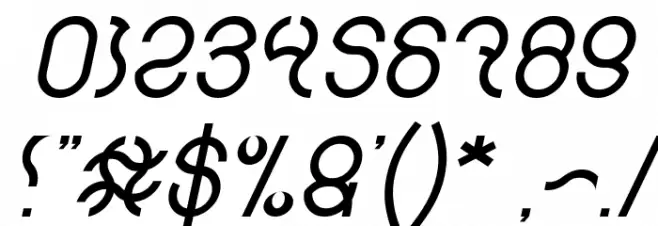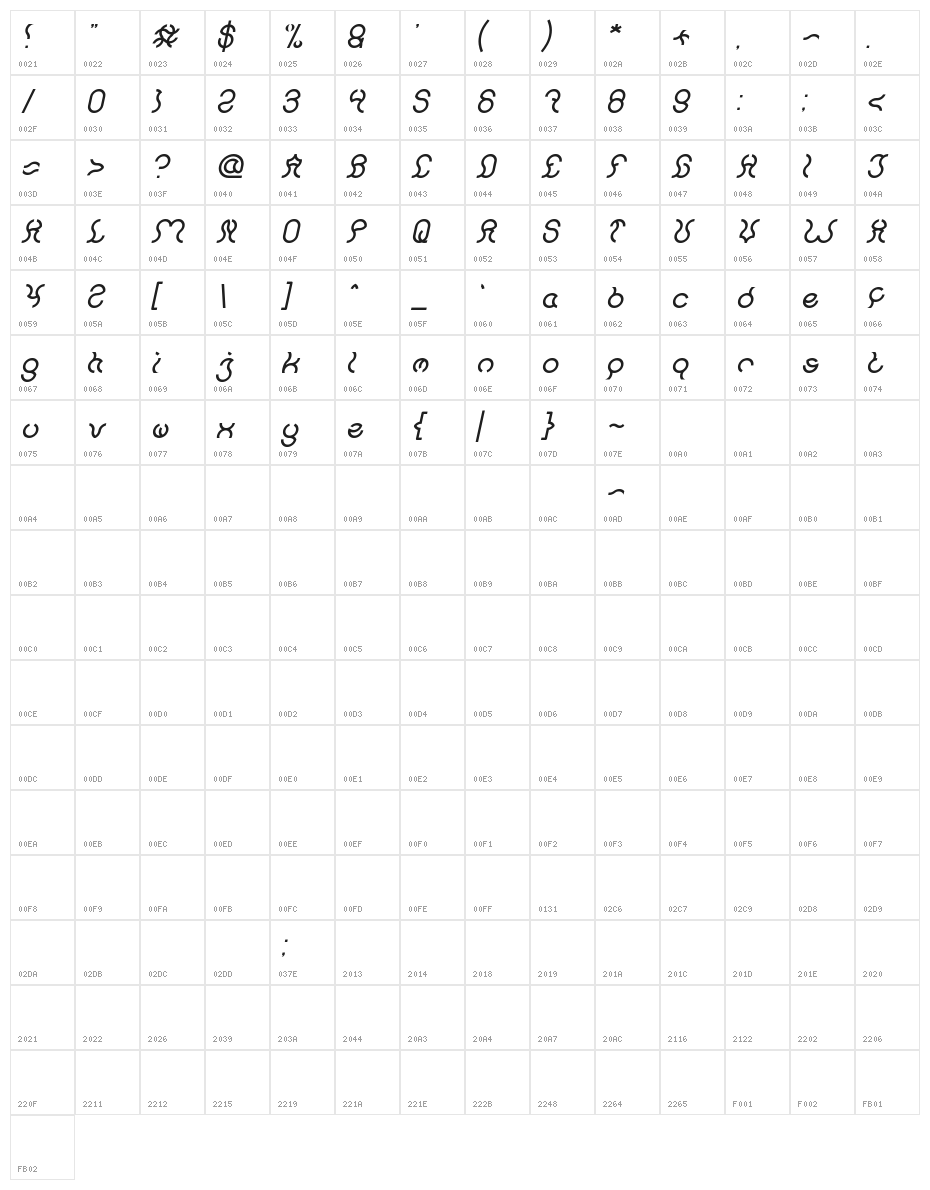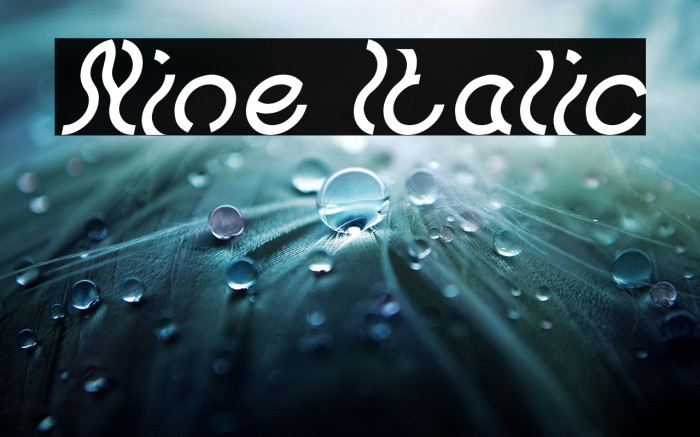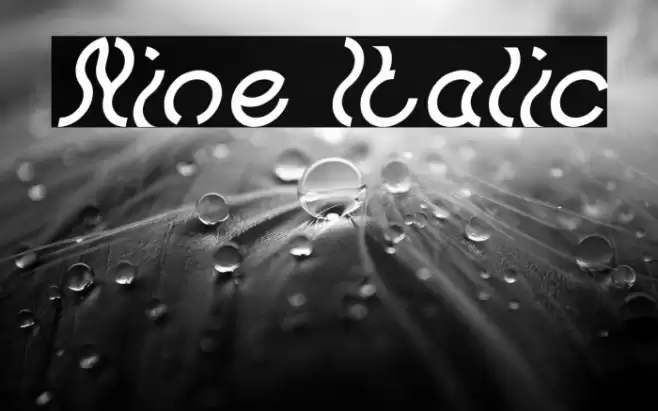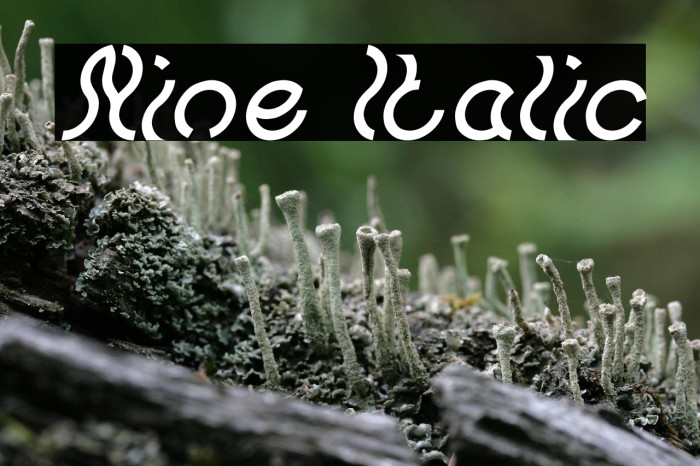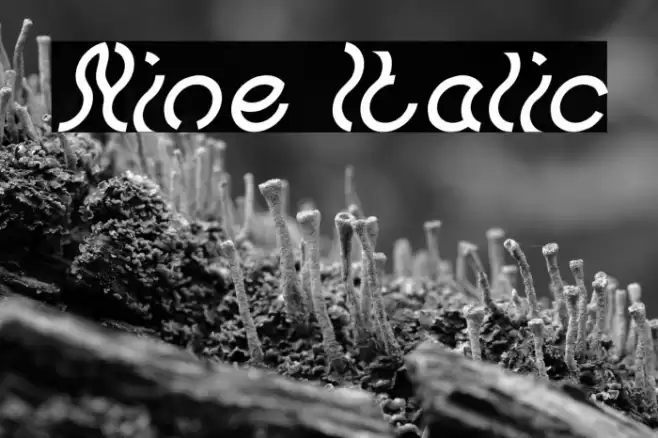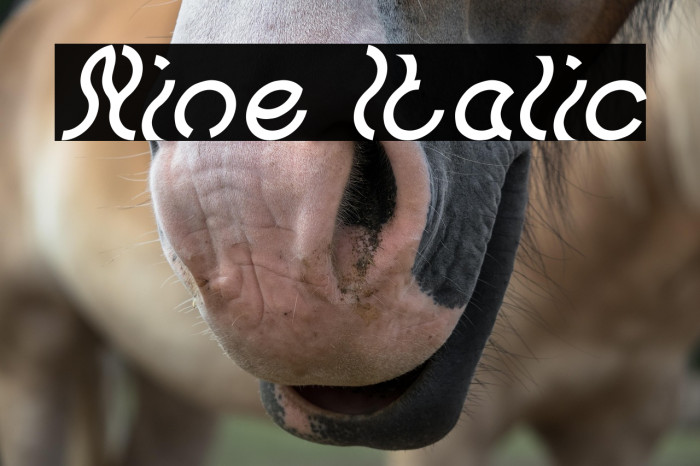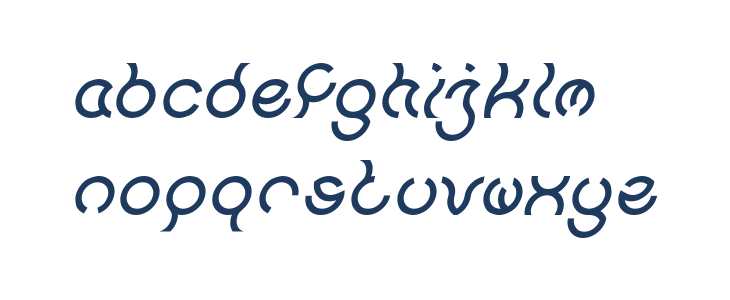
Nine Italic Font
Nine Italic Description
This font features a unique and artistic design with a strong emphasis on curves and fluidity. Each character is crafted with a distinct italic slant, giving it a dynamic and flowing appearance. The strokes are bold and consistent, creating a sense of movement and energy. The uppercase letters are particularly striking, with exaggerated curves and loops that add a decorative flair. The lowercase letters maintain the same stylistic elements, ensuring a cohesive look throughout. Numbers and special characters are designed to match the overall aesthetic, making this font suitable for creative and expressive projects.